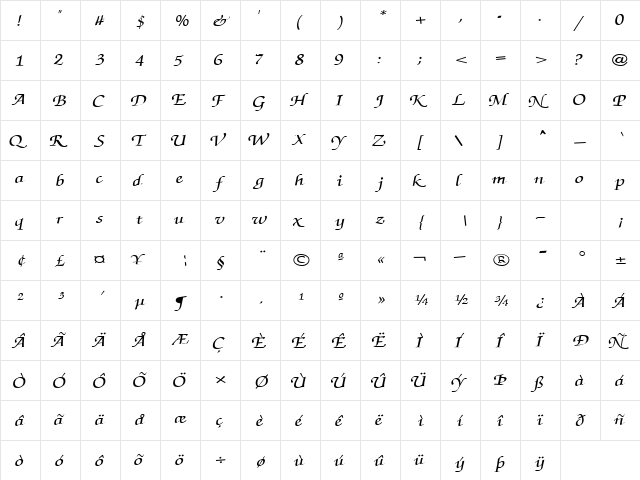
ChristianChicText65 Regular
Design Context for ChristianChicText65 Typeface
ChristianChicText65 takes a measured approach to typography — its balanced proportions and neutral character make it a reliable workhorse for both digital and print work.